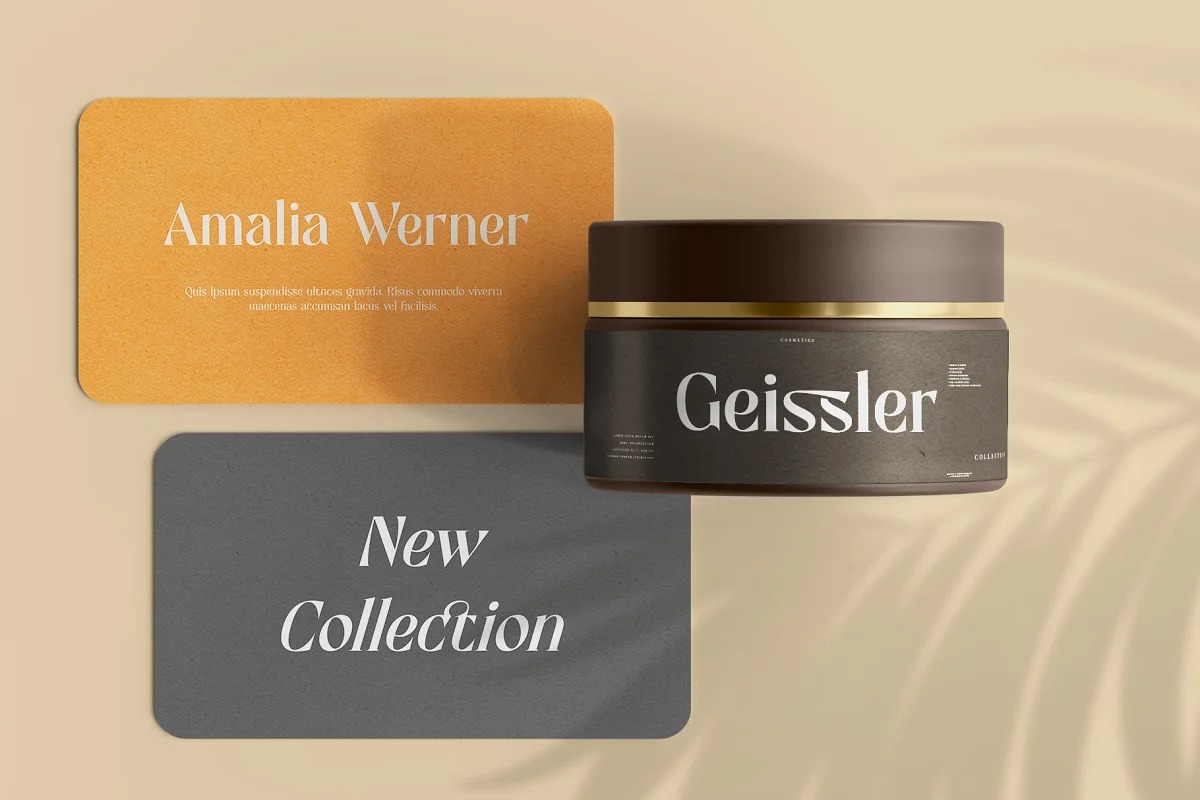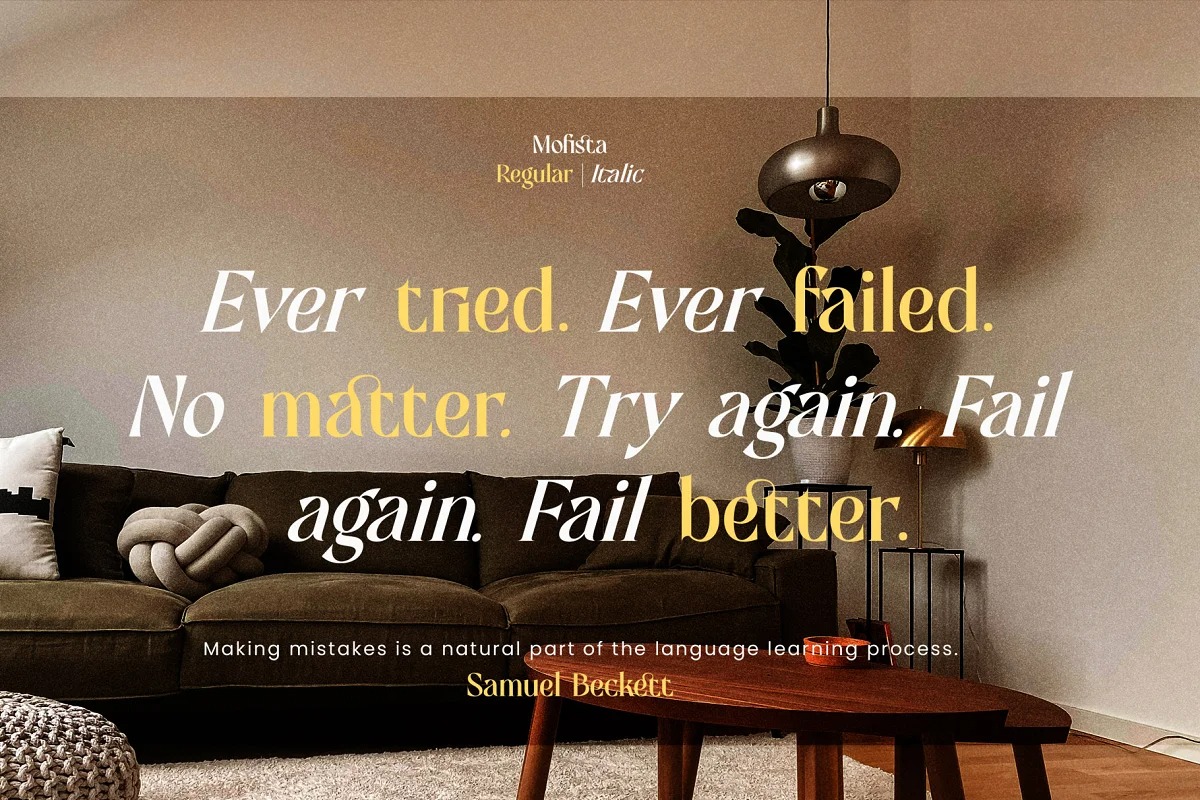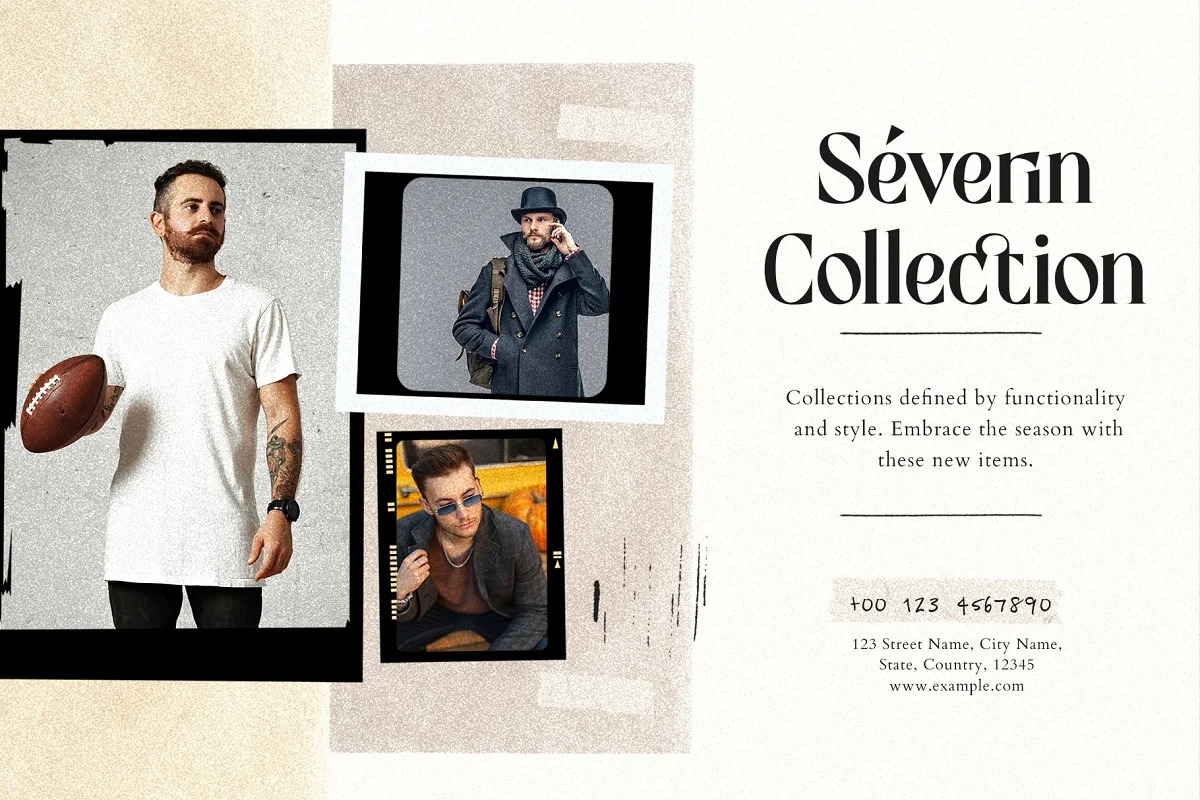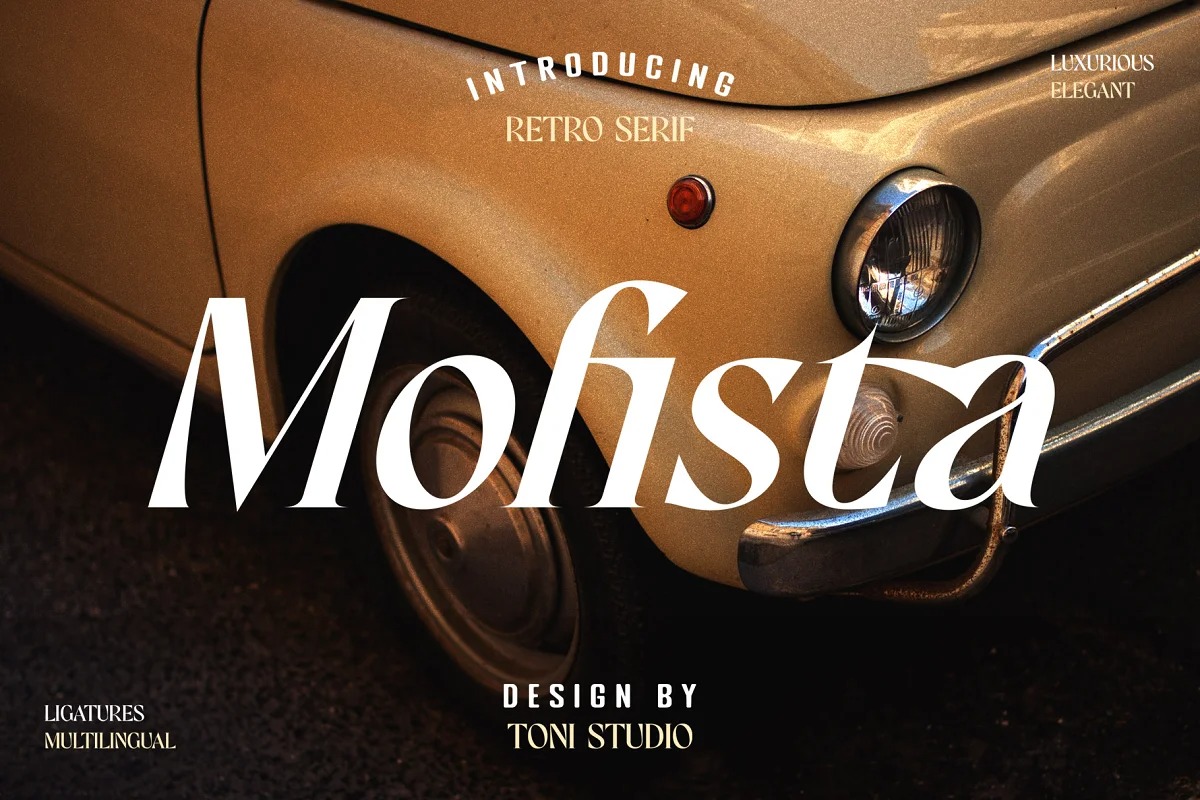
Mofista Font
Mofista Serif Font is a very popular alternate and ligature serif font, comes in a modern style hoping to become a market favorite. This font will make your project look retro, chic and neat. Its soft, juicy serif gives the typeface just the right amount of warmth and nostalgia. While hinting at classics like Cooper, the reinterpretation features some unconventional letterforms that make for a very dynamic italic romance. suitable for many projects: invitations, postcards, posters, books, advertisements, websites, blog headers, logos, brands, magazines, fashion, photography, etc. This font is a must-have in your collection and is perfect for your next design project